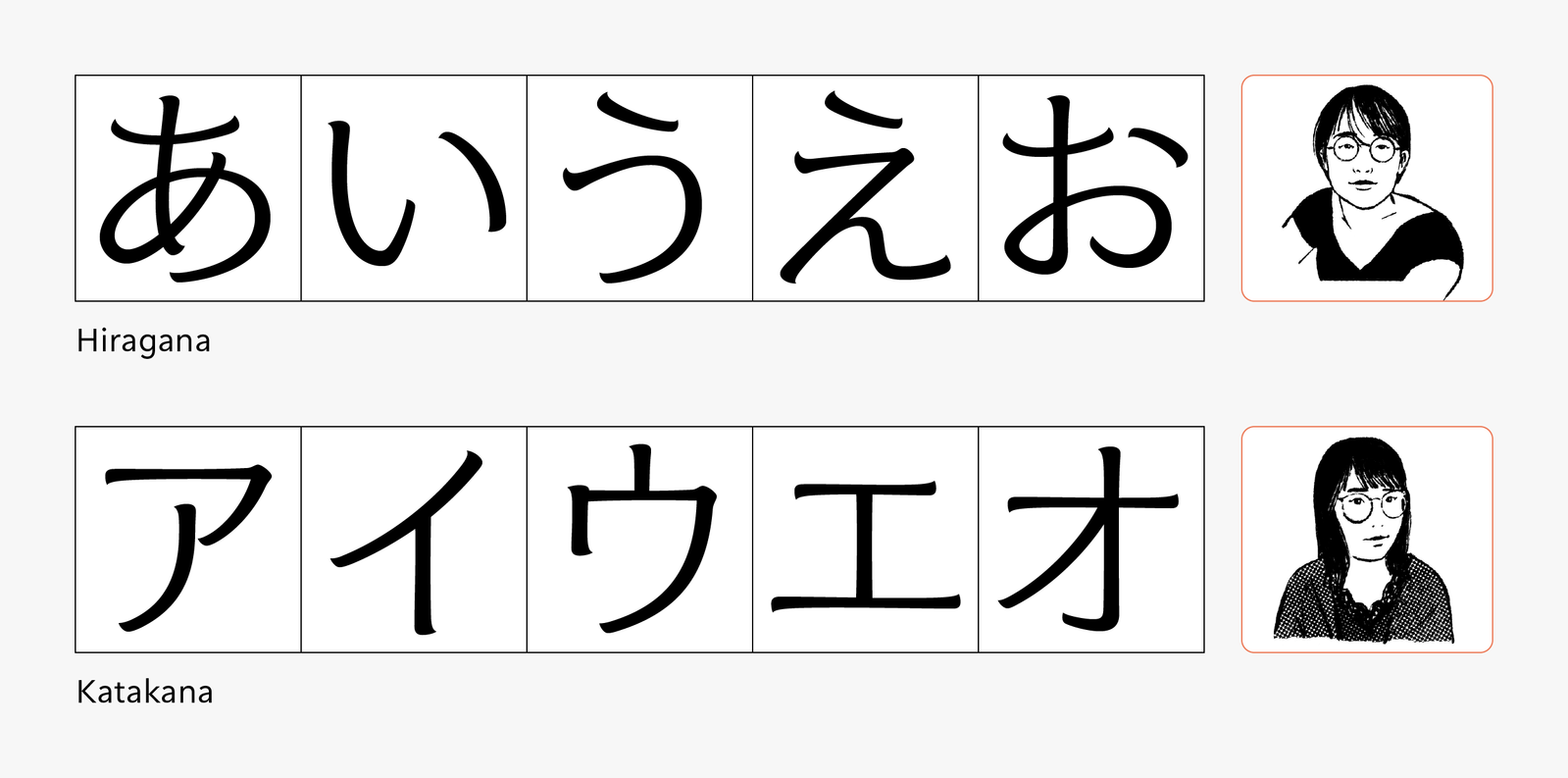
TP Apricot Development Story 07: Design of Hiragana
As mentioned in the development story, the TP Apricot has different people in charge of hiragana and katakana. I believe that in many Japanese fonts, one person is in charge of both hiragana and katakana. Taking on unconventional challenges, such as Latin-led development and dividing kana responsibilities, is also a feature of TP Apricot.
I was in charge of hiragana, and joined TP Apricot design midway through. By the time I joined midway, the base of the Latin was already complete and the kanji design had been finalized. For a while, we divided up the work on kanji (since kanji involves a large number of characters, there’s still a lot of work even after the design is finalized), but there was no need to worry about the policy from scratch at this point.
When I started prototyping hiragana, I began to have trouble with the design. Even though I did some work with kanji, I had only a superficial understanding of the trial and error behind the design, and especially in the beginning, I strongly felt that I couldn’t quite get it right. I received explanations from the lead members from various perspectives, and I kept revising the prototype by combining the Latin, kanji, katakana, and hiragana, trying this and that.
I think the biggest factor that helped us settle on the design was the katakana prototype. Shortly after I began working on the hiragana prototype, the designer in charge of Latin and kanji was also assigned to handle katakana, and the katakana prototype was shared with me. Compared to hiragana, which vacillated between Latin and kanji and occasionally went off track, katakana still felt like it blended well with fonts. That became the guideline, and the design of the hiragana also converged.